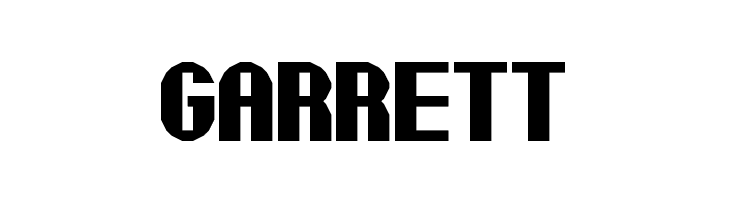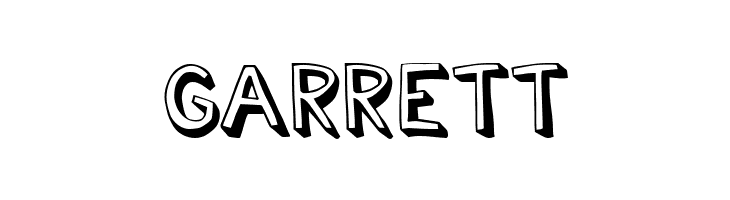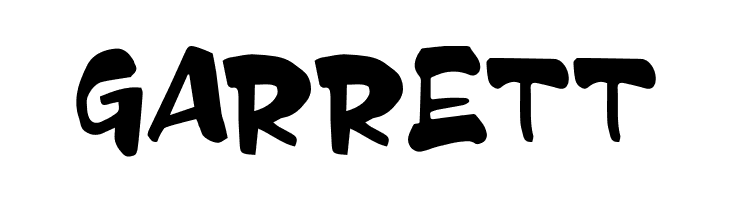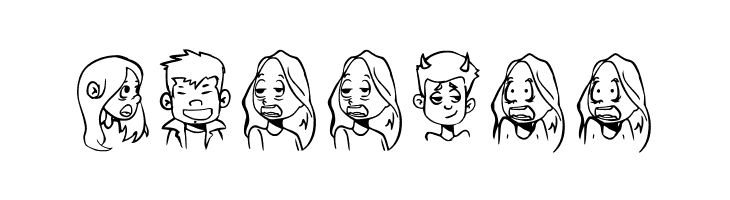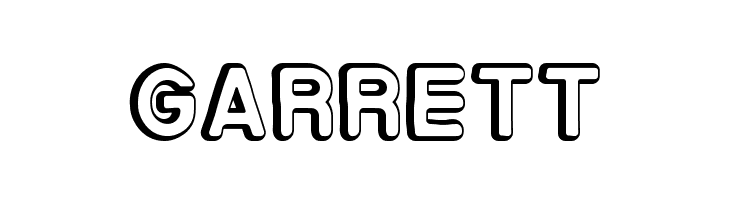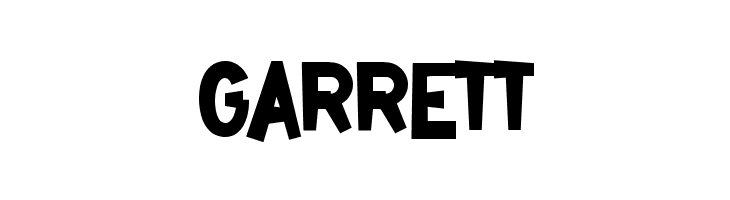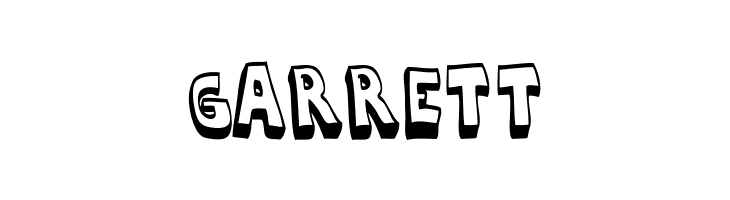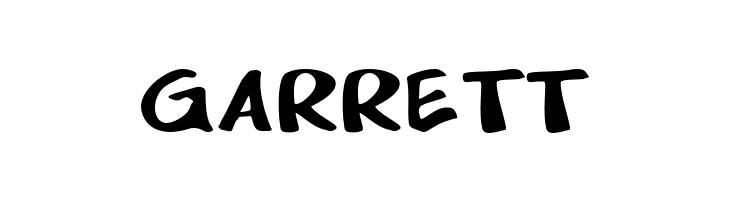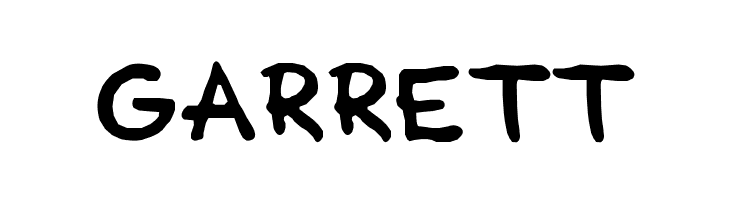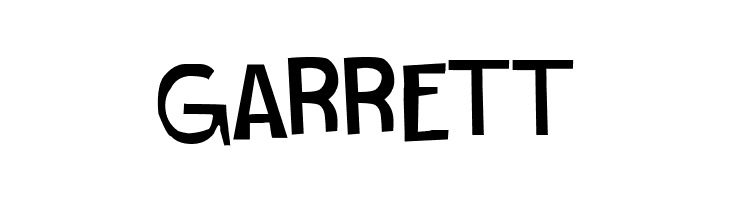
A playful, bold, hand-drawn font with a cartoonish, energetic style.
A bold, playful font with cartoonish, uneven strokes and exaggerated curves.
A playful, hand-drawn font with a cartoonish, whimsical style.
A bold, italicized font with a playful, cartoonish style.
A bold, playful font with a hand-drawn marker style.
A playful, hand-drawn font with bold, rounded characters.
A playful, hand-drawn font with a 3D relief effect, perfect for comic and creative projects.
A bold, hand-drawn font with a playful, cartoon-like relief effect.
A playful, cartoon-style font with subtle shadow effects for a 3D look.
A playful, sketch-like outline font with a cartoonish flair.
A playful, bold font with a cartoon-like, hand-drawn style.
A playful, hand-drawn font with irregular, whimsical characters.
A playful, hand-drawn font with a cartoon-like, italicized style.
Hand-drawn cartoon font made of expressive character faces.
A playful, hand-drawn font with rounded, whimsical characters.
A playful, bold font with rounded outlines and a cartoonish style.
A decorative cartoon head illustration font with playful, expressive faces.
A bold, playful font with a cartoon-like, hand-drawn style.
A bold, 3D cartoon-style font with thick outlines and playful design.
A bold, cartoonish font with thick outlines and a playful, decorative style.
A bold, cartoonish font with wacky, hand-drawn characters.
A bold, cartoonish font with a 3D shadow effect and playful style.
A bold, cartoonish italic font with a playful 3D shadow effect.
A bold, cartoonish font with a playful 3D effect and thick outlines.